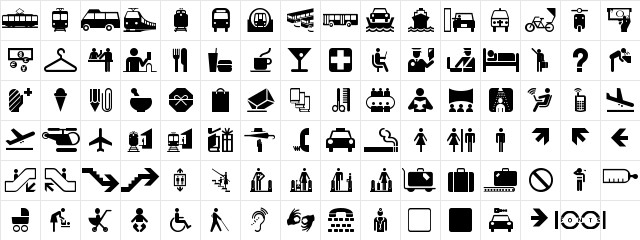
Glyphyx One NF Regular Font Preview
Glyphyx One NF Regular
Glyphyx One NF Regular Font Details
Design Context for Glyphyx One NF Typeface
Glyphyx One NF is a composed and adaptable typeface that performs quietly and consistently across a wide range of design contexts.